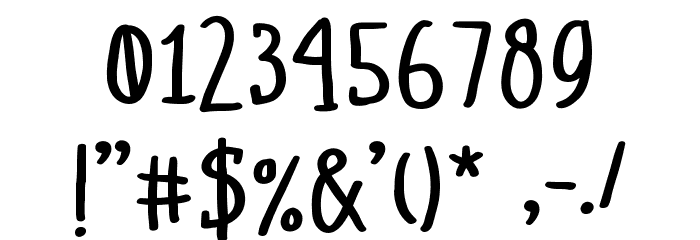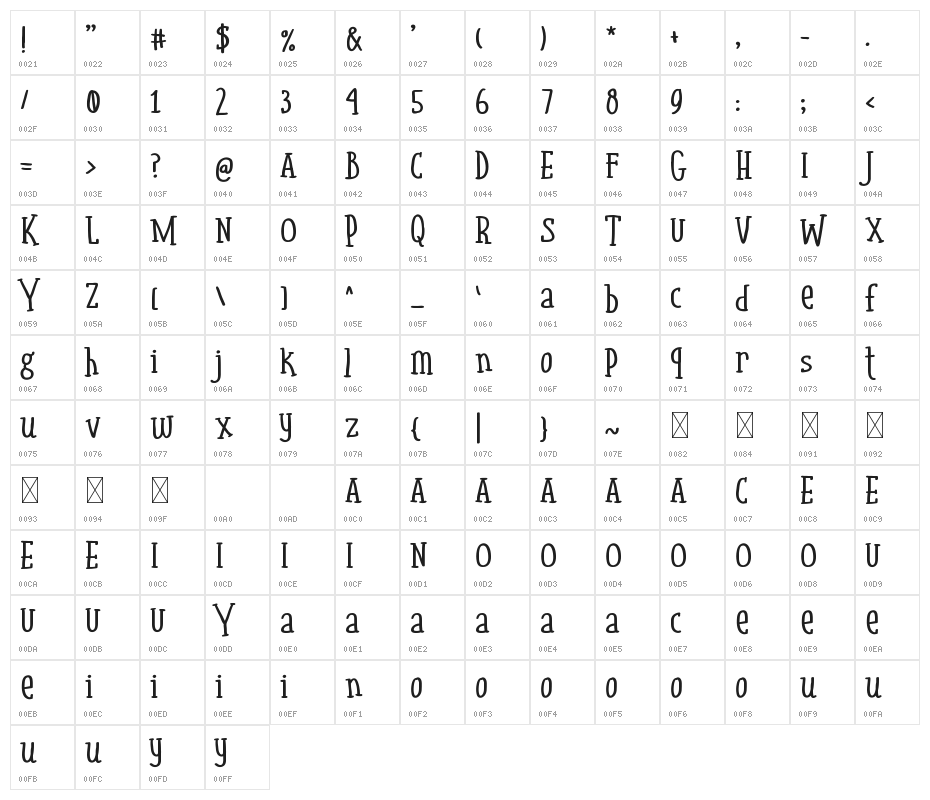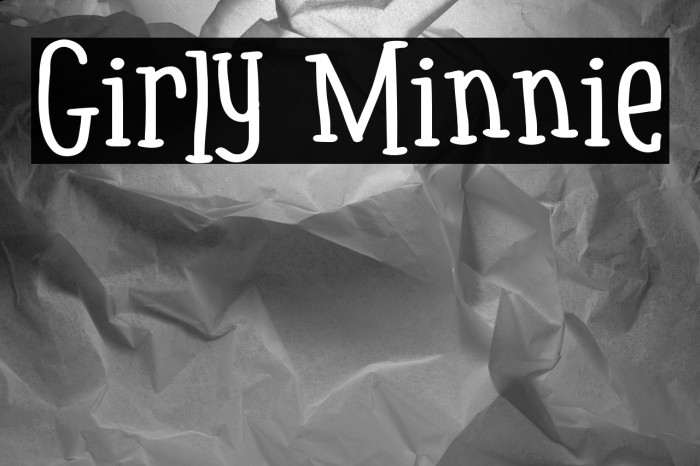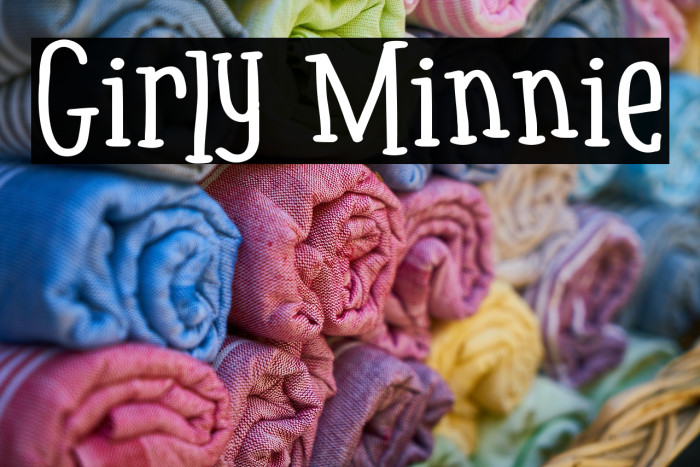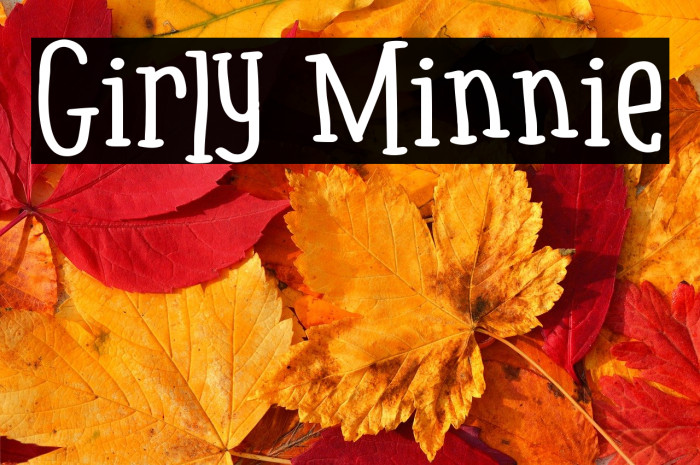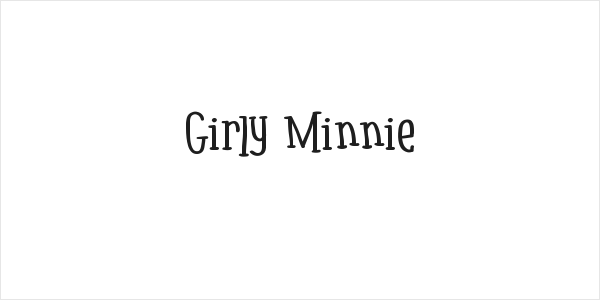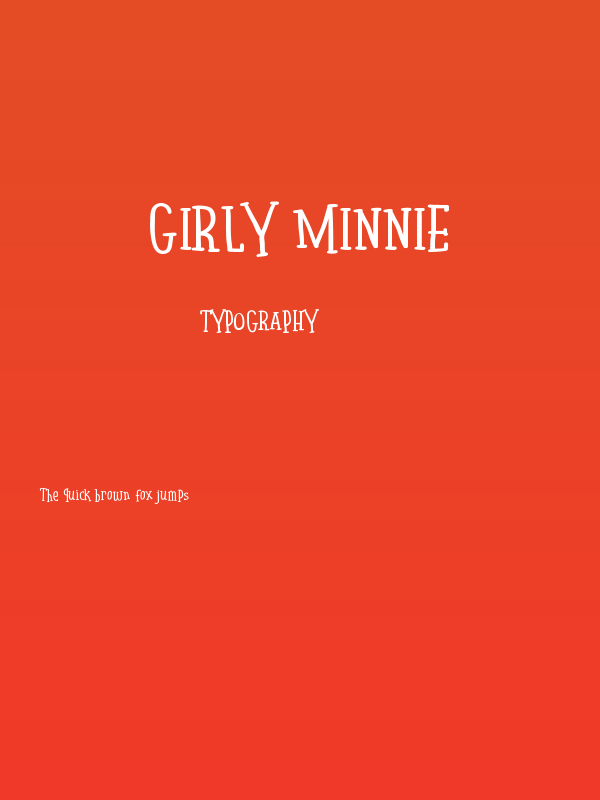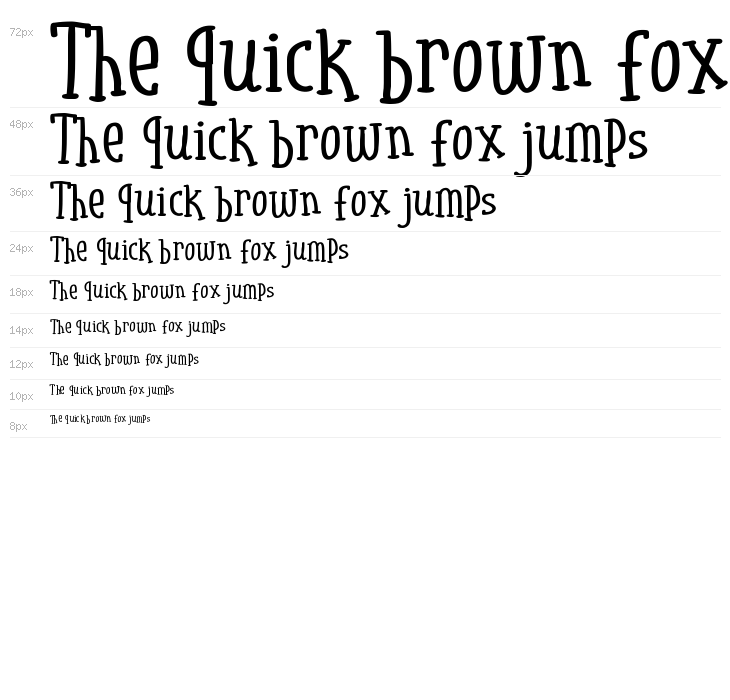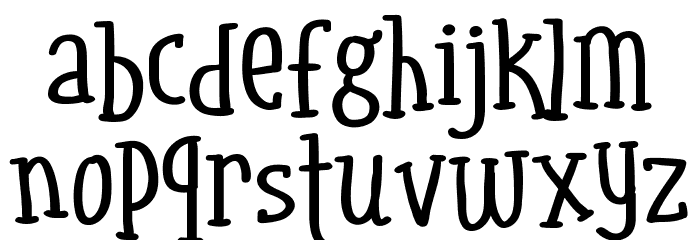
Girly Minnie Font
Girly Minnie Description
This playful and whimsical font features a hand-drawn style with a touch of elegance. The characters are slightly elongated with a gentle curve, giving them a friendly and approachable appearance. The uppercase and lowercase letters maintain a consistent style, with rounded edges and a smooth flow. The numerals and special characters are designed to match the overall aesthetic, ensuring a cohesive look across all text. This font is perfect for adding a fun and lively touch to any project, while still maintaining readability and charm.
| Overall Style | Whimsical |
| Proposed Projects | Ideal for children's books, greeting cards, playful branding, and invitations. |